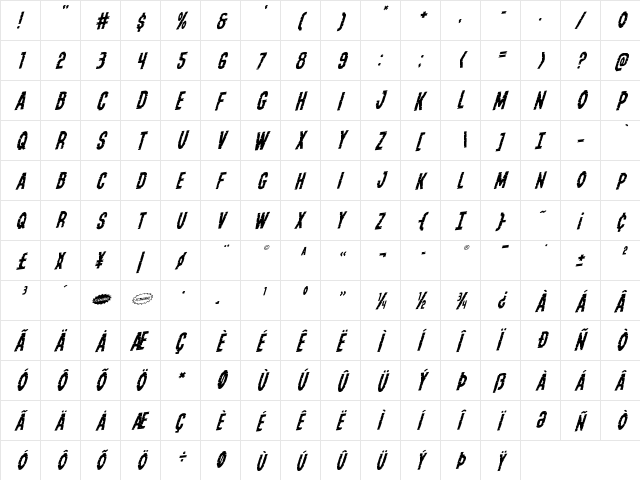
Yummy Mummy Rotalic Italic
Design Context for Yummy Mummy Rotalic Typeface
Yummy Mummy Rotalic is a composed and adaptable typeface that performs quietly and consistently across a wide range of design contexts. The slanted form adds forward momentum and visual energy.
Pro Tip: Use Yummy Mummy Rotalic for emphasis, pull quotes, and subheadings where its slanted energy can add rhythm to the layout.